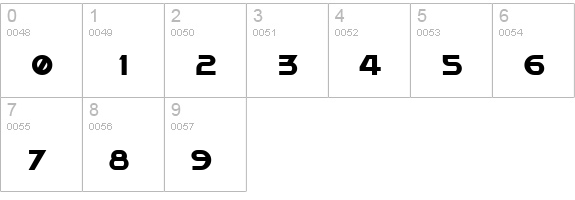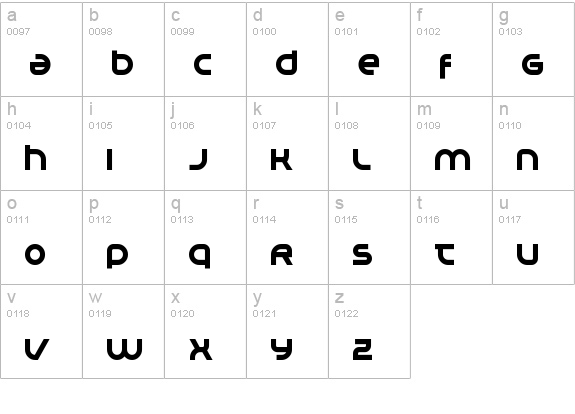
Planet Megapolis Font Details
Introducing the exquisite Planet Megapolis font, a true masterpiece of design that will elevate your creative projects to new heights. With its sleek and modern aesthetic, this font is perfect for adding a touch of sophistication to any visual endeavor. Planet Megapolis boasts a captivating blend of clean lines and bold curves, resulting in a harmonious balance that is both visually striking and effortlessly legible. Its versatile nature allows it to excel in various contexts, making it an ideal choice for headlines, logos, branding, and more. One of the most remarkable aspects of Planet Megapolis is its availability as a free download at FontsMarket.com. Yes, you read that right - this extraordinary font can be yours without spending a dime. FontsMarket.com, the leading platform for premium fonts, offers this gem completely free, allowing aspiring designers, creative enthusiasts, and professionals alike to access its brilliance without any financial barriers. Imagine the possibilities that this freely available font can unlock for your projects. From captivating website designs to eye-catching advertisements, Planet Megapolis will effortlessly inject a touch of elegance and sophistication, setting your creations apart from the rest. So why wait? Head over to FontsMarket.com and embark on a journey of endless creativity with Planet Megapolis. Download this remarkable font and witness your designs come to life with its captivating charm and timeless appeal. Don't miss out on this incredible opportunity to enhance your visual storytelling - get Planet Megapolis now, absolutely free!